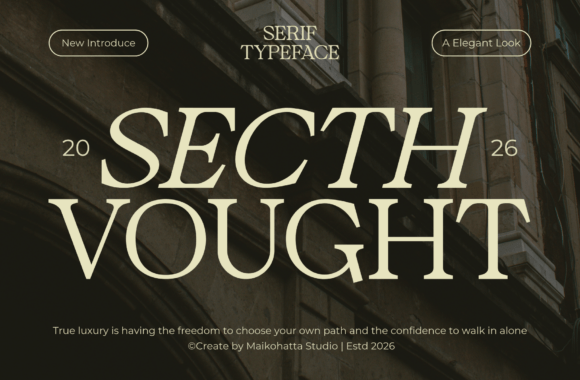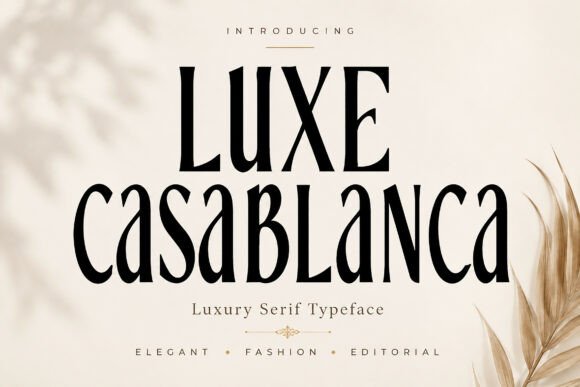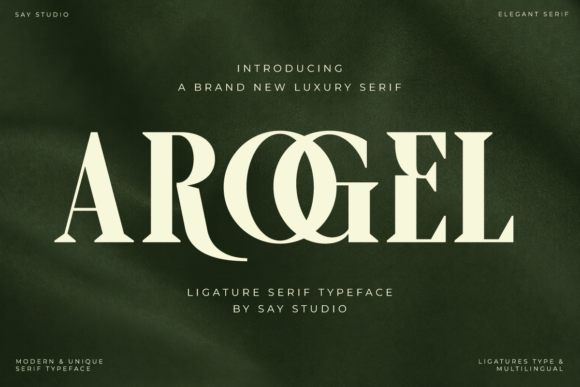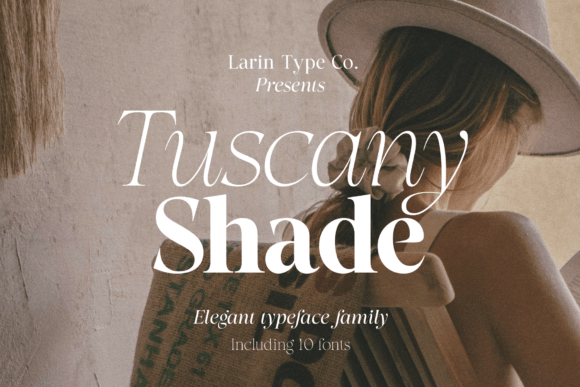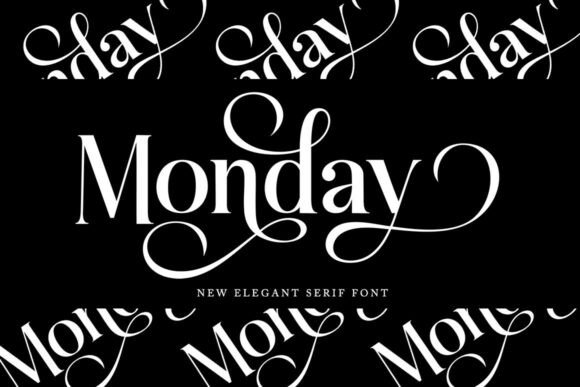
18 Beautiful Fonts for Product Packaging (2026)
Choosing fonts for product packaging is a different job from choosing them for a screen. The type sits on a curved bottle, prints at a few millimetres, and has to win a glance on a crowded shelf. A face that looks lovely on a mockup can break up on a jar lid, so fonts for product packaging are judged on how they behave in the real world.
This is an editor’s countdown: a top pick and a best-value choice up front, then 18 fonts sorted by the job they do on a label, premium serifs, front-of-pack display faces, modern families and artisan scripts.
The best fonts for product packaging at a glance
Short on time? Here is where I would start before the full list of fonts for product packaging below.
Editor’s top pick: Lovine
A modern luxury serif with the presence to carry a brand name on the front of the pack.
Best value: Sydney Sweeney
A serif family that covers labels, lids and inserts in one calm, readable voice.
Premium serif fonts for product labels
Serifs are the backbone of premium packaging. These fonts for product packaging read expensive small and hold their shape in print.
Lovine
Lovine is a modern luxury serif with timeless elegance, and it is my top pick among fonts for product packaging. The refined contrast reads as quality the moment a shopper sees it, so it carries a brand name on the front of a premium pack. Use it large for the name and a plain sans for the small print. The clean serifs print reliably down to fairly small sizes. For packaging that should look expensive on the shelf, Lovine is the first face I would test.
Secth Vought
Secth Vought is a sophisticated luxury serif crafted for refinement and timeless beauty. Among premium packaging fonts it is calm and assured, suiting a wellness brand or a premium pantry range. The clean serifs hold their shape on labels and lids. Pair it with a quiet sans for directions and weights. For packaging that should feel refined rather than loud, Secth Vought is a dependable serif worth a close look.
Luxe Casablanca
Luxe Casablanca is a sophisticated luxury serif built for elegance and timeless beauty. As fonts for product packaging go it photographs beautifully on a box, reading high-end without shouting. The graceful proportions stay legible on small detail panels too. Use it for the name and a clean sans for the back. For a premium product whose packaging should feel quietly expensive, Luxe Casablanca is a polished serif worth trying.
Arogel
Arogel is a luxurious serif with sculpted letterforms and modern refinement. Among fonts for product packaging it leans a little more decorative, giving a hero product or limited edition a designed feel. Use it for the front name at a generous size where the sculpting shows, paired with a plain sans for detail. For premium packaging that wants a serif with character and class, Arogel is a graceful font worth a place on the shortlist.
Tuscany Shade
Tuscany Shade is an elegant contrast serif family with a fashionable feel. As fonts for product packaging it offers a shaded style that adds depth to a label name, almost like letterpress. Use the shaded cut for the hero word and the regular for support. Watch the contrast on rough stock and keep it large. For an upscale pack that wants drama with a touch of craft, Tuscany Shade is a characterful serif family worth a look.
Monday
Monday is a beautiful, high-quality serif that reads clean and refined. Among fonts for product packaging it is a flexible, no-drama choice, carrying a name on the front and staying clear on the back panel. That makes it good value for a brand dressing several products. Pair it with a plain sans for the legal text. For packaging that wants a reliable, elegant serif across a whole line, Monday is a tidy font worth trying.
Baik
Baik is a refined serif that blends timeless elegance with modern sophistication and sharp details. As packaging fonts go it reads premium yet stays crisp at smaller sizes, useful on a busy label. Use it for the name and short callouts, with a plain sans for the rest. The sharp detailing reads as craft at a generous size. For a premium pack that wants a modern, polished serif, Baik is a graceful font worth a closer look.
Rusilla Serif
Rusilla Serif is a sophisticated serif suited to labels, logos and formal print. Among packaging fonts it is a steady workhorse, classic enough for premium goods yet clear enough for a back panel. Use it for the name and a clean sans for directions. The balanced forms hold up across formats. For packaging that wants a classic, dependable serif voice from front to back, Rusilla Serif is a polished font worth a look.
Display serifs for the front of the pack
The front of a pack gets one second of attention. These high-drama display fonts for product packaging are built to win it.
Ondine
Ondine is a refined display face with delicate high-contrast strokes and graceful proportions. It is a front-of-pack font: drop it on a label at size and the fine detailing reads as luxury. The delicacy means it is not for small print, so pair it with a sturdy sans below. Among fonts for product packaging it shines on perfume, fine spirits and premium beauty. For a product that wants a refined face leading the pack, Ondine is worth a close look.
Galvore
Galvore is a sophisticated serif display face crafted for luxury branding and editorials. Among display fonts for product packaging it carries enough contrast to feel premium while staying readable for a hero name. Use it for the front panel and campaign headlines, with a plain sans for the details. The refined display forms want a generous size. For packaging that wants a refined display serif with presence, Galvore is a strong font worth a try.
Girlfrom Nowhere
Girlfrom Nowhere is an editorial serif built around sophistication and a magazine feel. As display fonts for product packaging go it brings a glossy, cover-like tone to a brand name, flattering beauty and premium food alike. Use it for the front name at size where the editorial styling shows, paired with a plain sans. For packaging that wants an editorial, considered front-of-pack face, Girlfrom Nowhere is an elegant font worth a closer look.
The Lencier
The Lencier is a sophisticated modern serif with striking contrast and sculpted letterforms. Among display fonts for product packaging it brings high-fashion drama, suiting a hero product or limited edition where the pack is part of the event. The sculpted shapes read as craft at large size. Pair it with the simplest sans for everything else. For statement packaging that wants pure modern drama, The Lencier is a striking serif worth trying.
Modern serif families for a product range
For a whole product line, a family keeps every label in one voice. These give a range matching weights to build on.
Sydney Sweeney
Sydney Sweeney is a contemporary serif family built for elegance and clarity, and it is my best-value pick among fonts for product packaging. The reason is range: matching weights cover the name, the story panel and the directions, so one family dresses a whole product line. The clean forms stay legible small. For a founder dressing several products on a budget, Sydney Sweeney is a smart, money-saving serif worth a look.
Modern Thin Bundle
The Modern Thin Bundle is a set of lightweight faces for clean, contemporary layouts. As fonts for product packaging it suits modern, minimalist goods, clean-beauty, wholefoods, where thin type reads as quiet luxury. Use a slightly heavier cut for very small sizes and treat the bundle as a starter kit, assigning each weight a job. For a modern product range built from one source, this thin bundle is a practical collection worth exploring.
Grinola
Grinola is a modern clean serif with graceful curves, refined contrast and artistic letterforms. Among fonts for product packaging it balances character and clarity, so a label name feels designed yet stays readable. Use it for the name and a plain sans for ingredients, and it covers a modern product line nicely. The clean build holds up small. For a contemporary product range that wants a tidy, characterful serif, Grinola is a graceful font worth trying.
Script names for artisan packaging
Script names signal handmade and premium. These flowing fonts suit artisan food, gift and beauty packaging where warmth sells.
Grace Brilliant
Grace Brilliant is a beautiful, elegant script with a polished, expert finish. Among script fonts for product packaging it gives an artisan or gift product a hand-signed, premium name. Keep it to the brand name and a short line, since scripts blur in bulk, and pair it with a clean sans for ingredients. The flowing forms want room. For artisan packaging that wants a graceful, crafted name, Grace Brilliant is a lovely script worth a look.
Cherry
Cherry is a modern handwritten face with a sweet, high-fashion elegance. As script fonts for product packaging go it brings soft, homemade warmth, ideal for a jam, a balm or a small-batch treat. Keep it to the name and a short accent, paired with a clean sans for the details. The handwritten forms want a comfortable size. For artisan packaging that wants a sweet, crafted name, Cherry is a charming font worth trying.
Predator
Predator is an elegant script with beautiful character variations. Among script fonts for product packaging it gives a label a flowing, signature feel with enough alternates to fine-tune the join on a brand name. Keep it to the name or a short line and pair it with a clean sans for the back panel. The script reads best at a generous size. For artisan or premium packaging that wants an elegant, variable script name, Predator is a graceful font worth a closer look.
How to set fonts on a label so they read
The right face is half the job. A few habits keep fonts for product packaging legible on a real surface.
- Proof at true size: print the label at its real width before you fall for it on screen.
- Mind the curve: on bottles and jars, leave room so letters do not distort at the edge.
- Pair high with low: one display face for the name, one plain sans for ingredients.
- Check the ink: thin serifs break up on matte or recycled stock, so add weight if you print rough.
Fonts FAQ
What are the best fonts for product packaging in 2026?
The best fonts for product packaging balance shelf drama with small-size legibility. From this roundup, Lovine leads for premium front-of-pack names, Sydney Sweeney is the best value for a whole product line, and a clean sans should always handle ingredients and legal text. Match the face to the product, then proof it at real print size.
Should packaging use a serif or a script font?
Serifs are the safer backbone for packaging because they read well small and feel premium. Scripts like Grace Brilliant suit artisan and gift goods where a handmade feel sells, but keep them to the brand name. A practical setup is one display or script face for the name and one plain sans for the details, which is how most fonts for product packaging are paired.
What size should label text be to stay readable?
Always proof at the label’s true printed size rather than judging on screen, since fine serifs and scripts can break up in ink. Body and legal text usually needs a clean sans at a comfortable minimum, while the display name can go large. On matte or recycled stock, add a little weight to thin strokes so they survive.
Choosing the right fonts for your packaging
Good fonts for product packaging come down to a simple split: one face with enough drama to win the shelf, and one quiet sans for the practical text. Lead with a serif like Lovine or Sydney Sweeney, add a script only where a handmade feel helps, and always proof at true size before you commit.